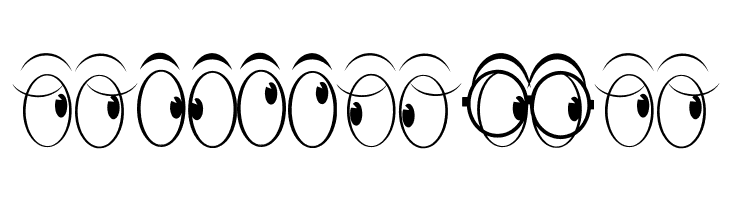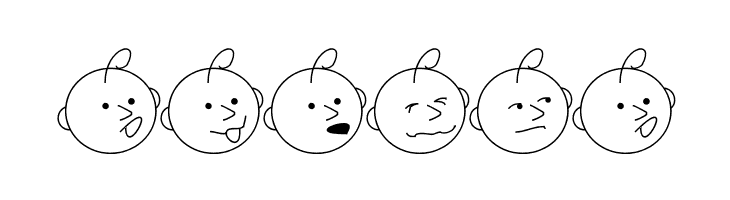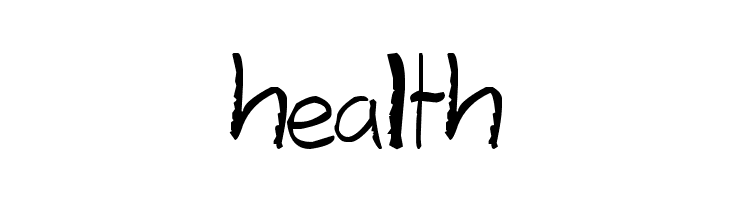
A whimsical font with characters designed as expressive cartoon eyes.
A playful font featuring expressive faces in circular outlines.
A bold, graffiti-inspired font with dynamic, expressive strokes.
A bold, expressive handwritten font with dynamic strokes.
A dynamic, expressive font with flowing lines and intricate swirls.
A playful, dynamic handwritten font with expressive strokes and a lively aesthetic.